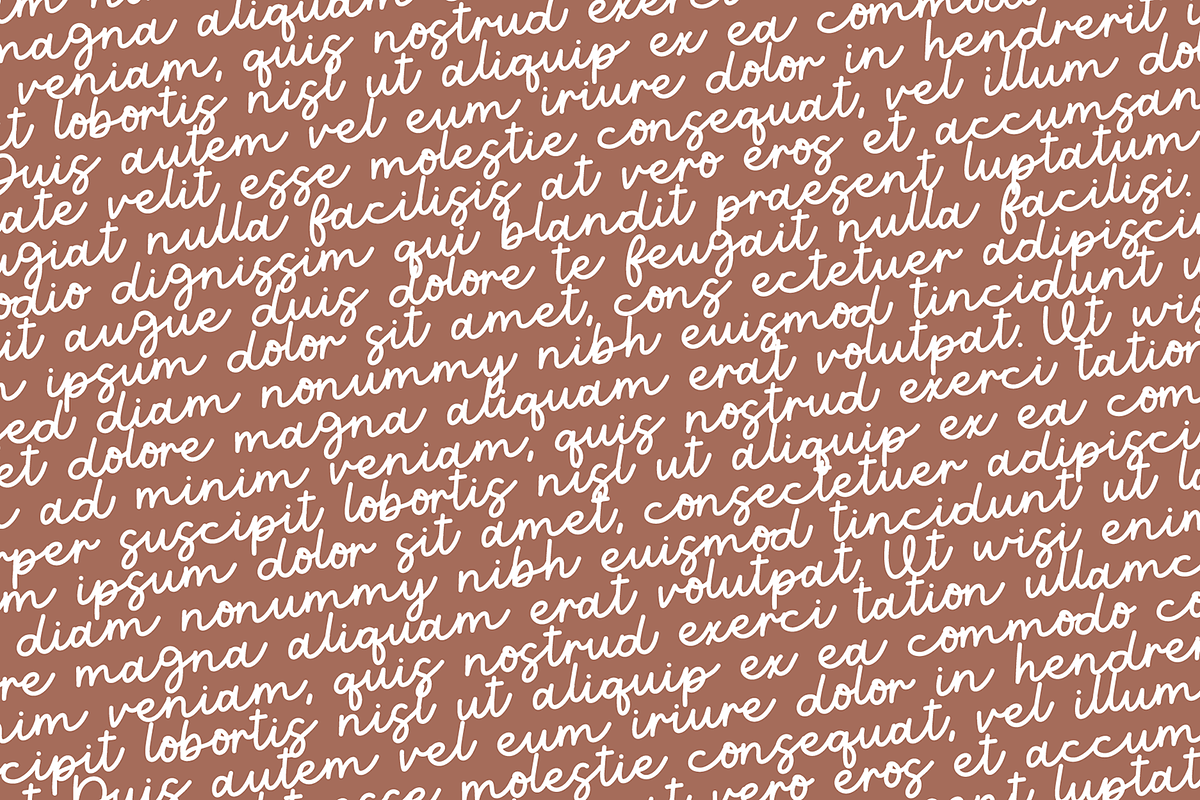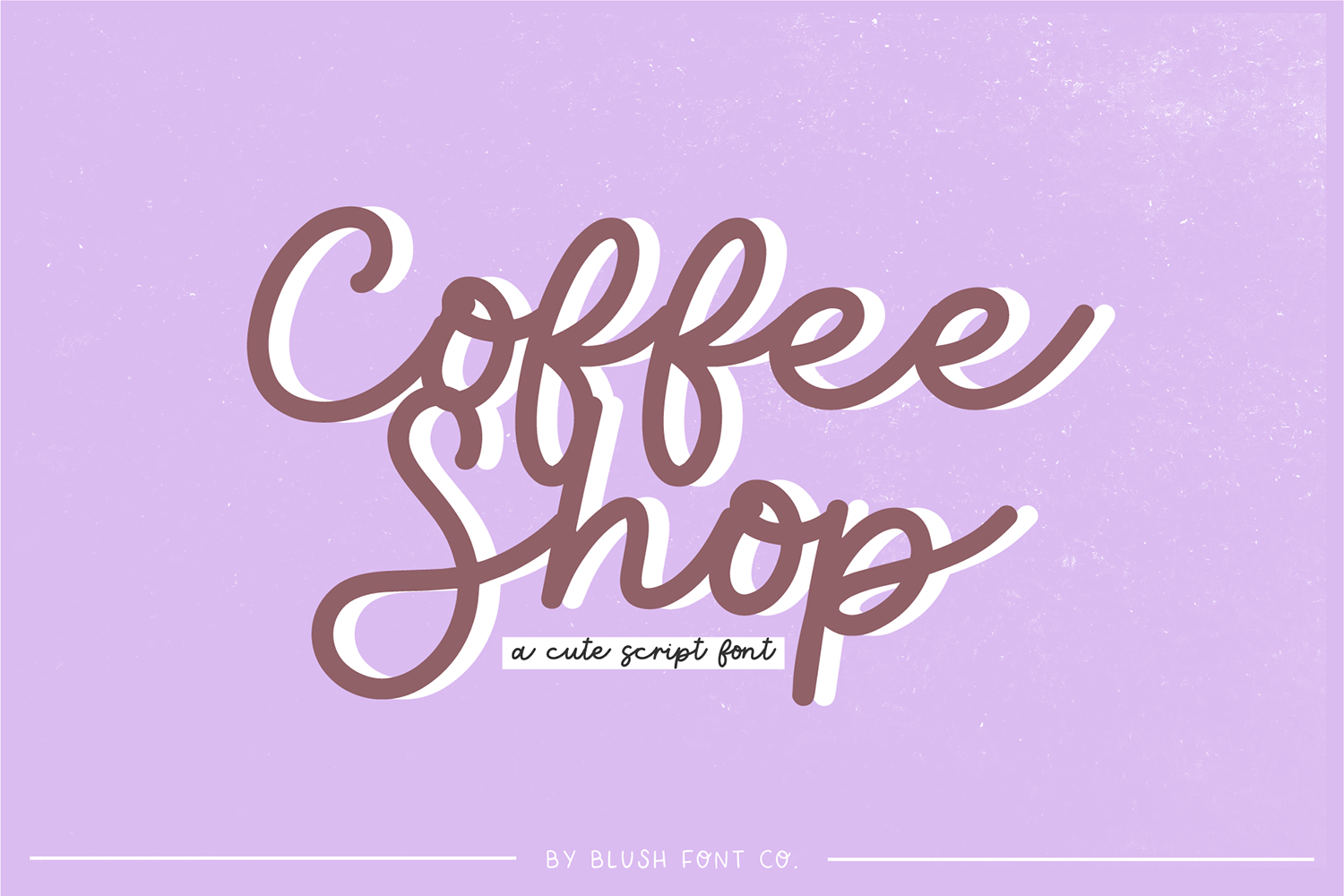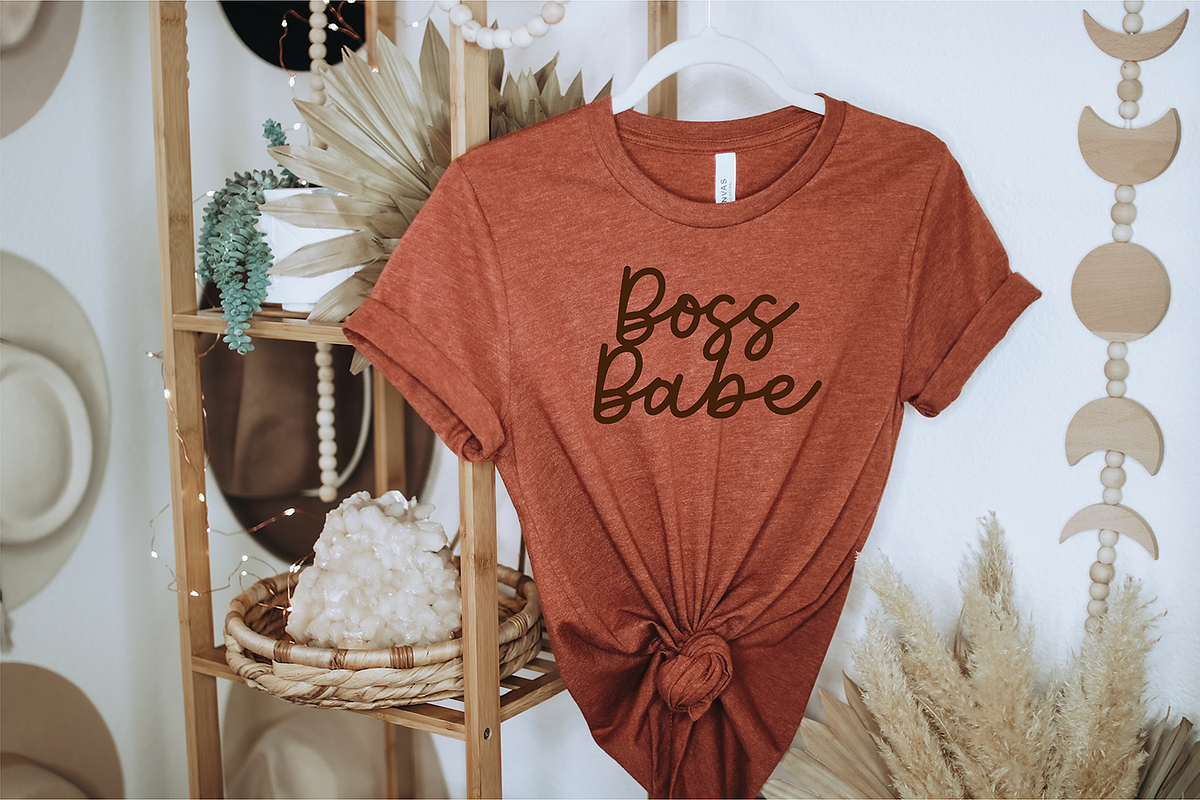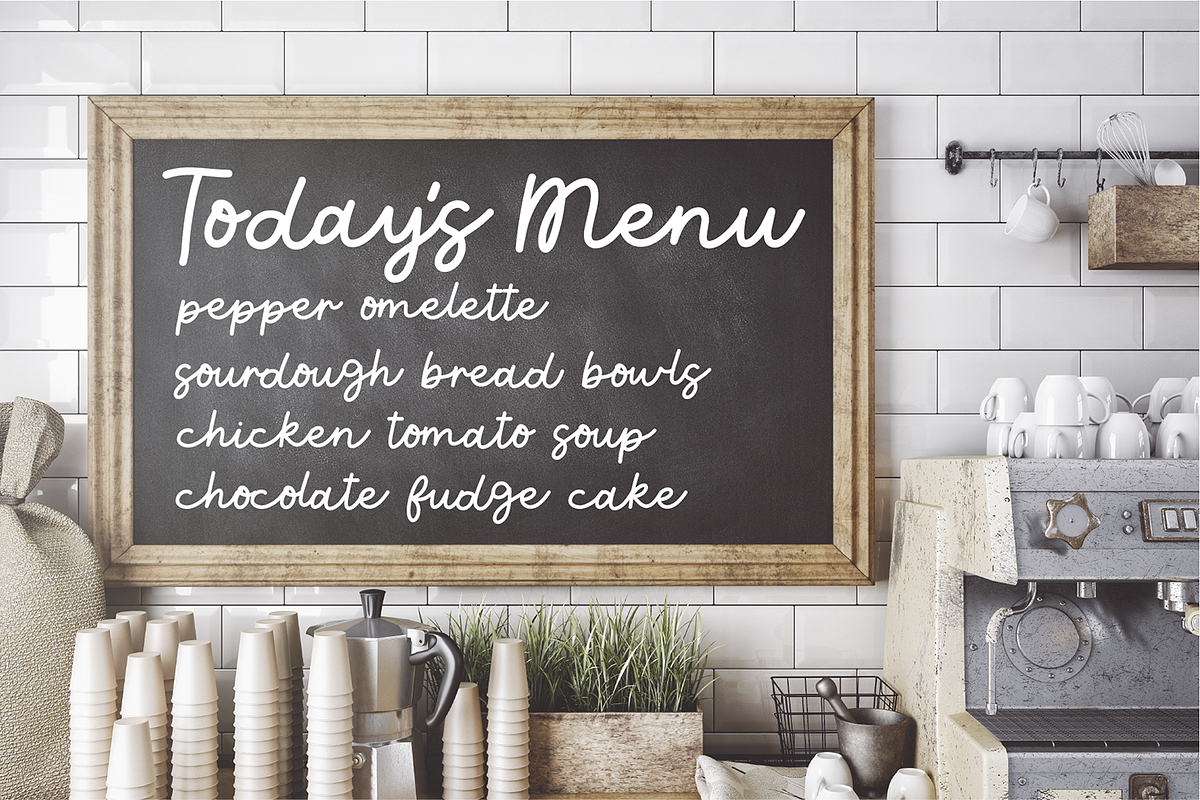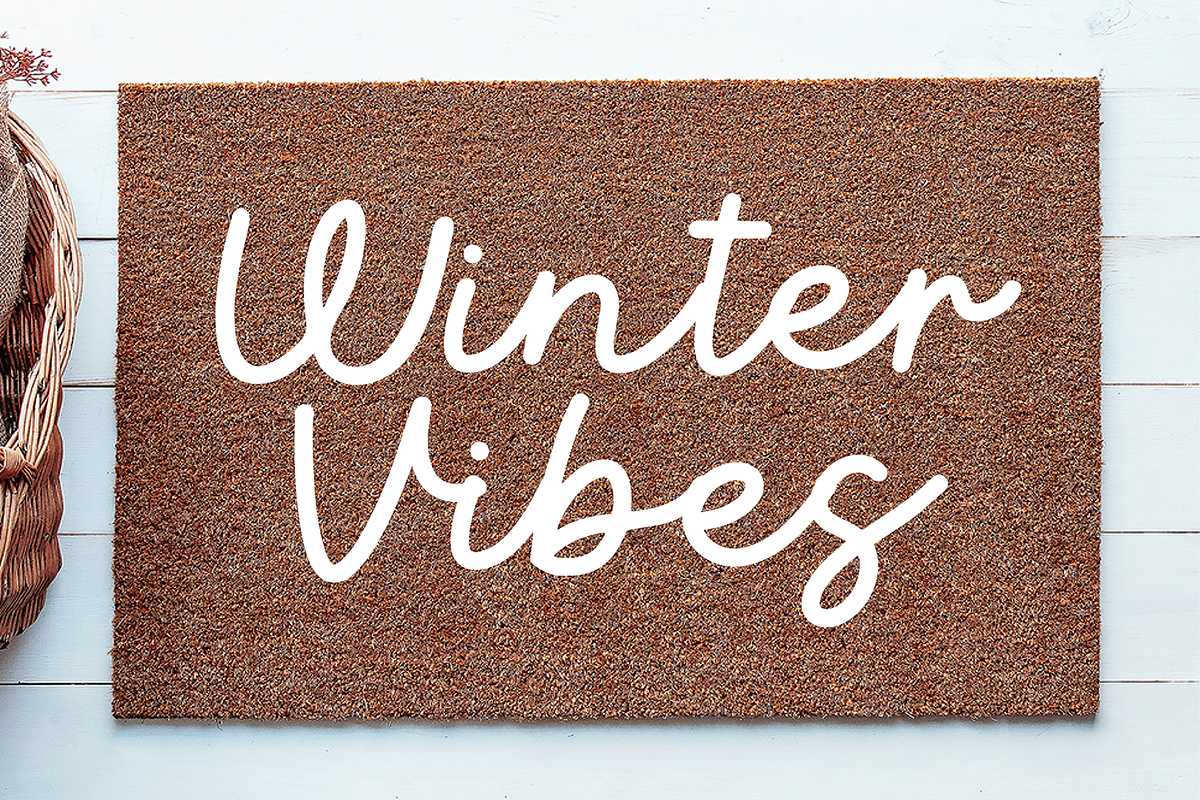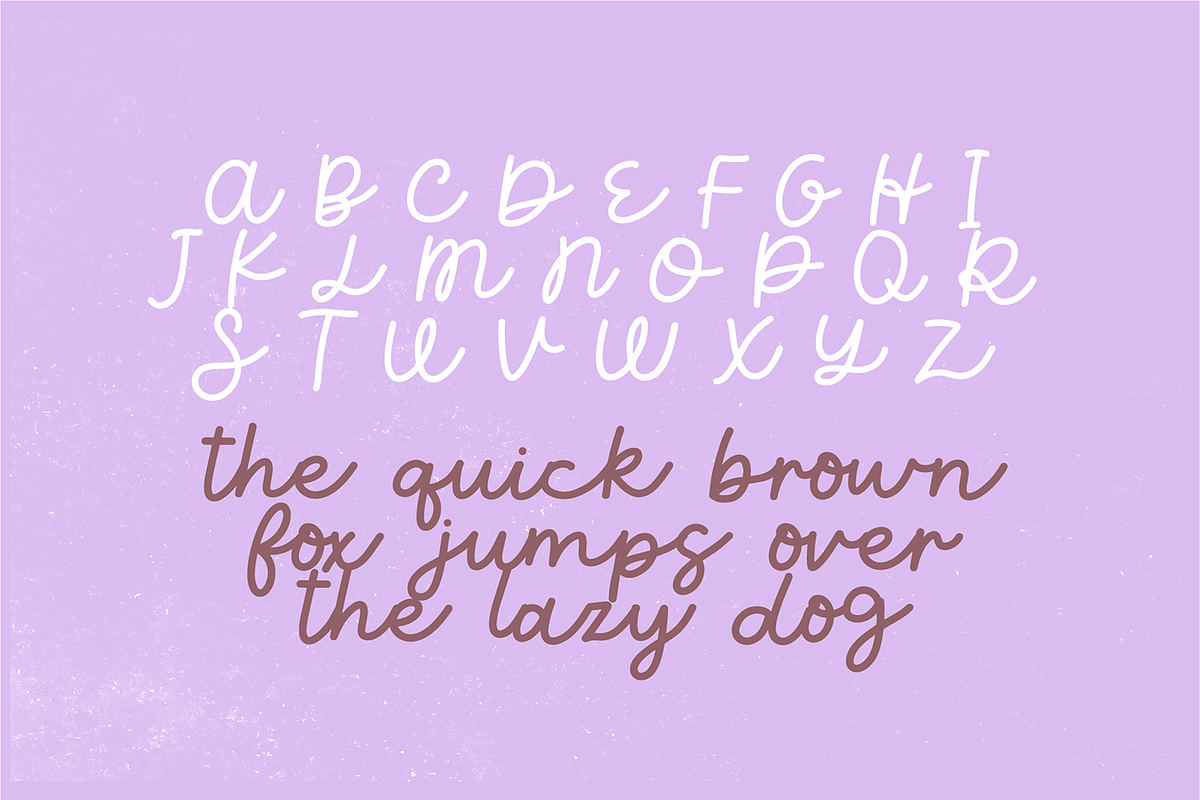
COFFEE SHOP Casual Script Font
"Coffee Shop" a casual script font
Coffee Shop is a vintage script font. Font includes: Upper and lowercase glyphs, numbers, basic punctuation, and international characters.